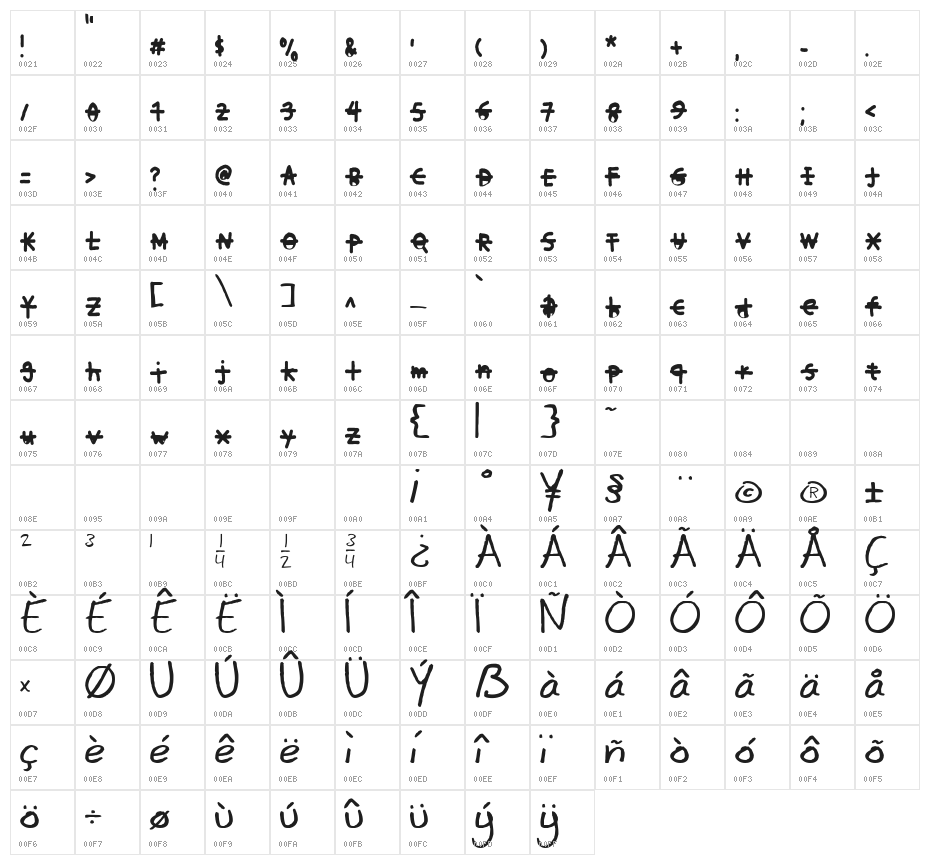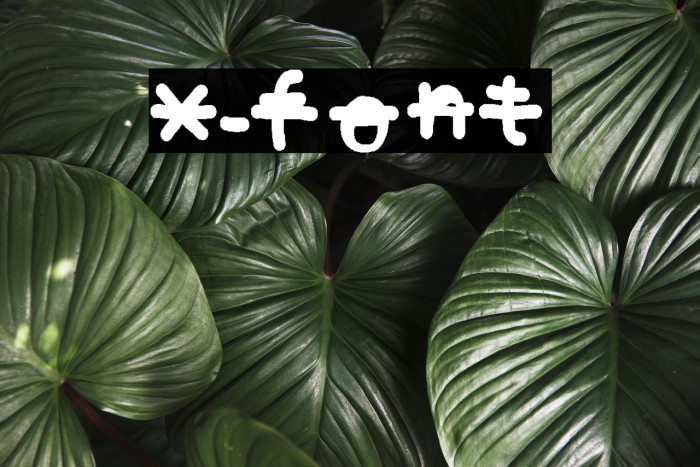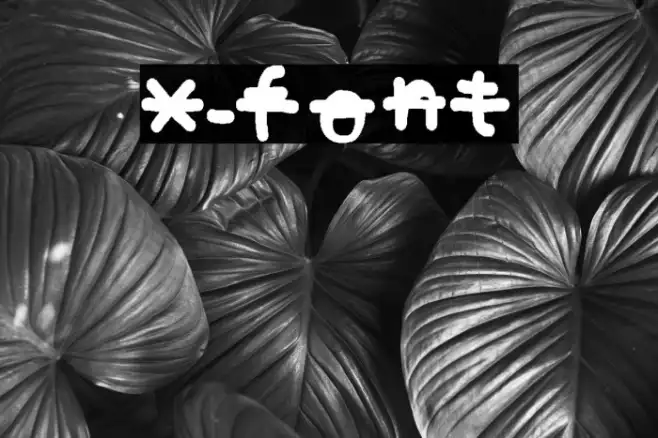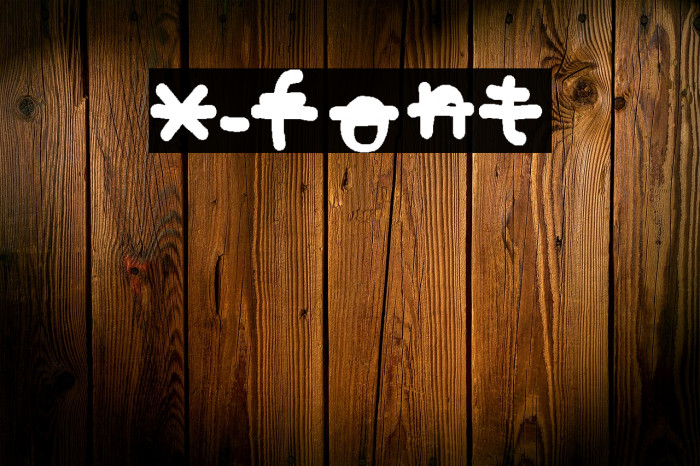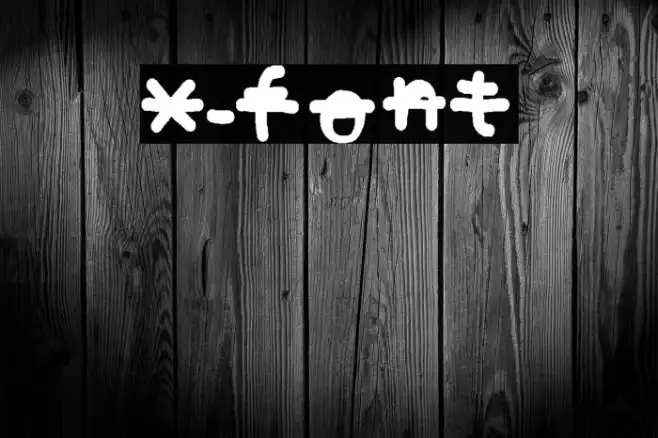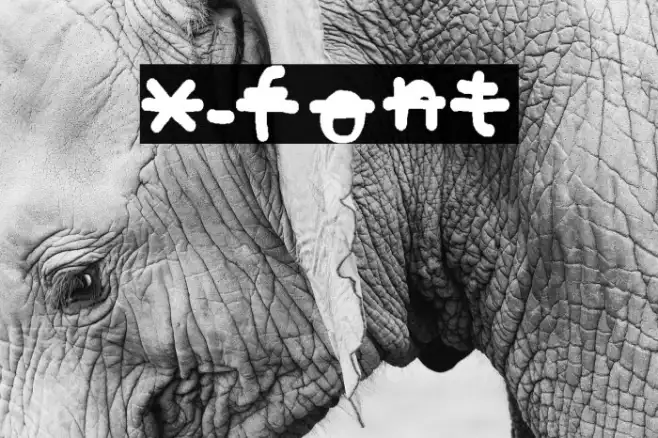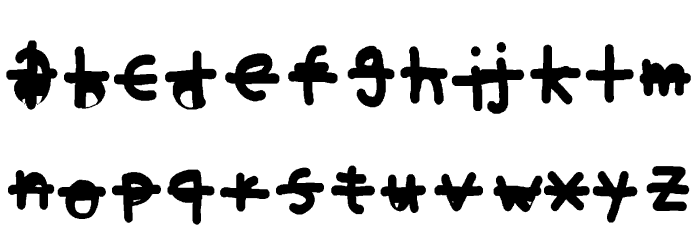
x-font Font
x-font Description
This font features a playful and bold handwritten style, characterized by its thick strokes and rounded edges. The letters are slightly irregular, giving it a casual and informal appearance. The uppercase and lowercase letters maintain a consistent style, with a unique crossbar on the 'A' and a distinctive loop on the 'g'. Numbers are equally bold and rounded, ensuring readability. Special characters are creatively designed, maintaining the overall playful aesthetic. This font is ideal for projects that require a fun and approachable look.
| Proposed Projects | Ideal for children's books, playful branding, casual invitations, and social media graphics. |